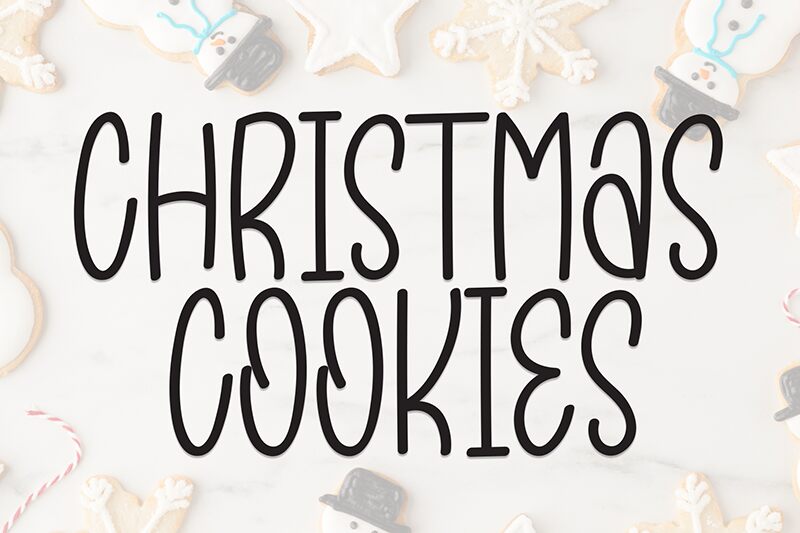
Christmas Cookies
Christmas Cookies font is a condensed handwritten display font designed by Andi Moz. The letters have quirky and whimsical shapes in addition to decorative lines and points. Although looking generally modern, this typeface can bring festive associations to the reader.